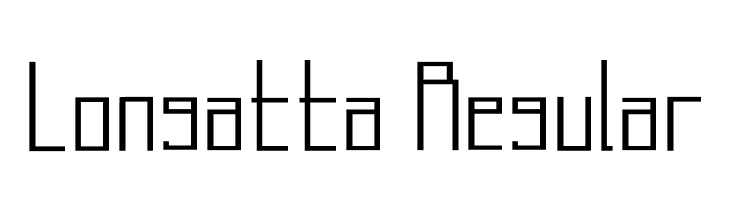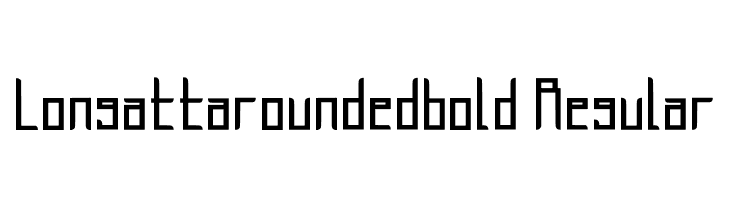
A bold, geometric font with rounded corners and a modern aesthetic.
A geometric, modern font with tall, narrow letterforms and consistent stroke width.